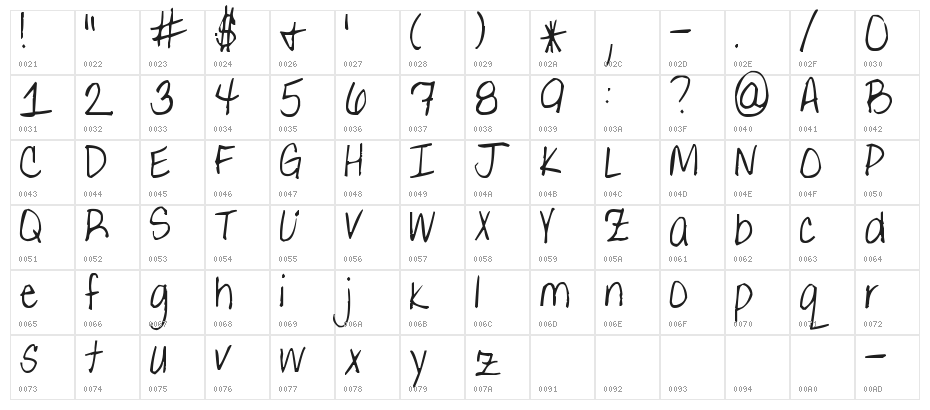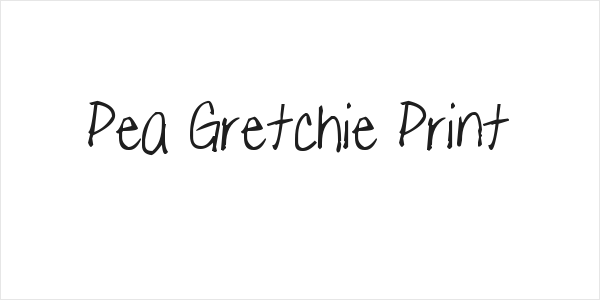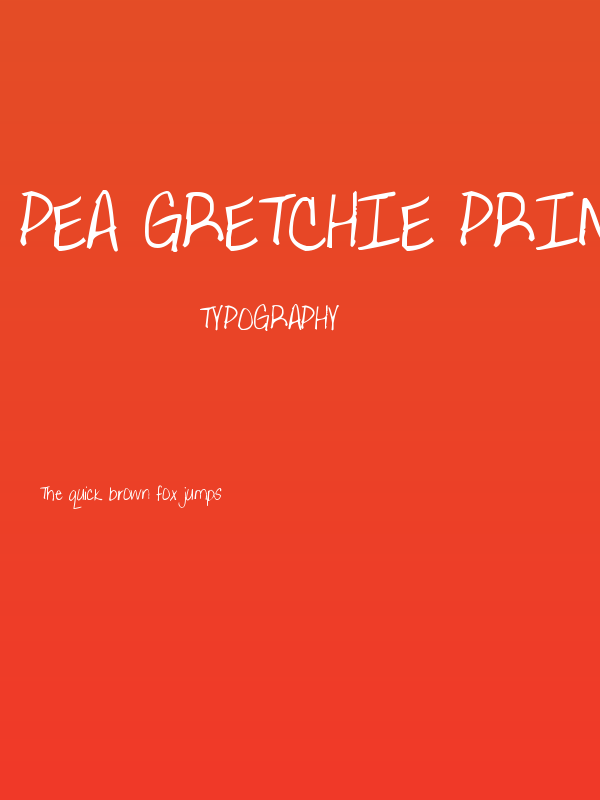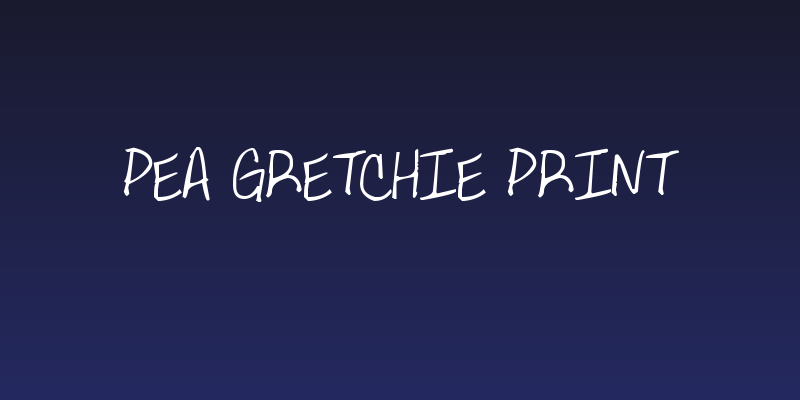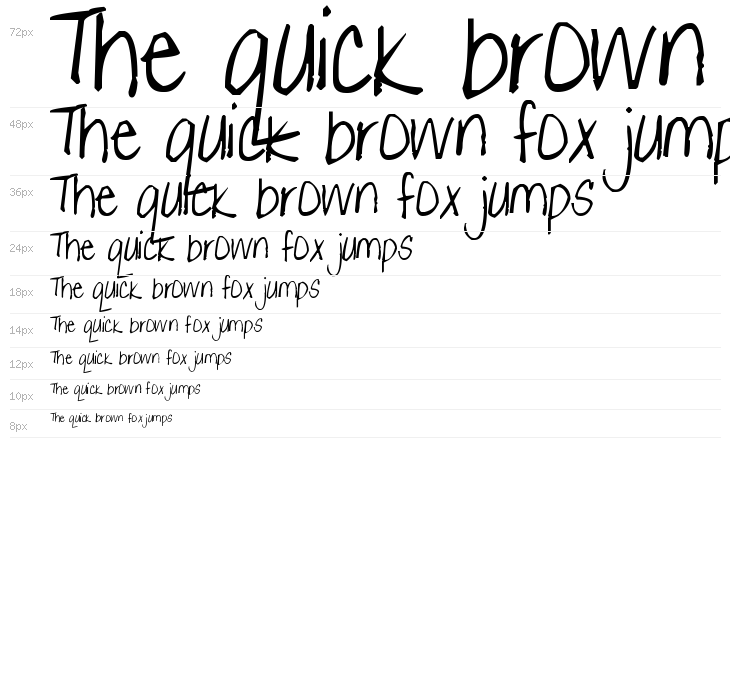
Pea Gretchie Print Font
Pea Gretchie Print Description
This font features a playful and casual handwritten style, characterized by its uneven strokes and organic flow. The letters have a slightly irregular baseline, giving it a dynamic and lively appearance. The uppercase letters are bold and prominent, while the lowercase letters maintain a consistent size, enhancing readability. The numbers and special characters follow the same playful aesthetic, making the font versatile for various creative projects. Its informal nature makes it ideal for designs that aim to convey a personal touch or a friendly tone.
| Proposed Projects | Ideal for greeting cards, personal blogs, children's books, and informal branding. |